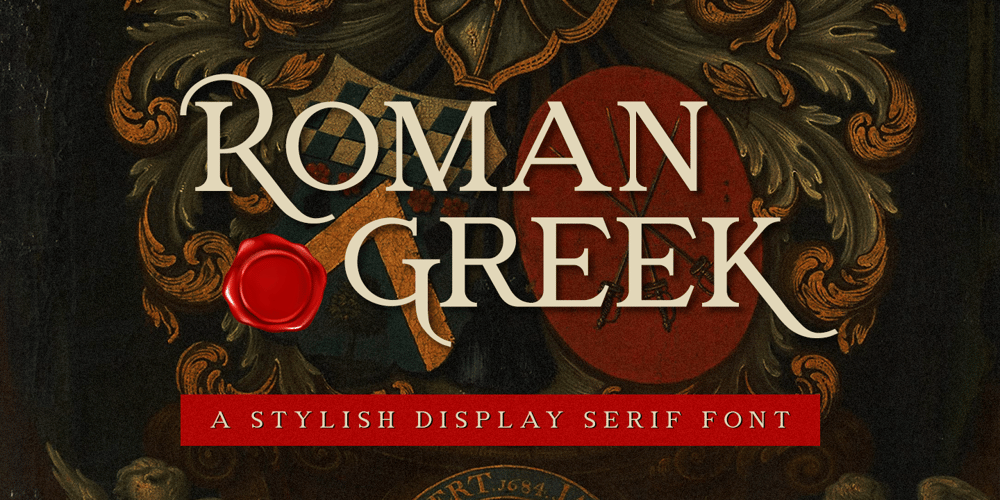
Roman Greek Font Family was designed by Hayinah and published by Rockboys Studio. Roman Greek contains 1 styles and family package options. Roman Greek is an elegant and distinct serif font. Suitable to a wide variety of designs due to its neat and simple style, this font has the potential to become your favorite go-to font, no matter the occasion!